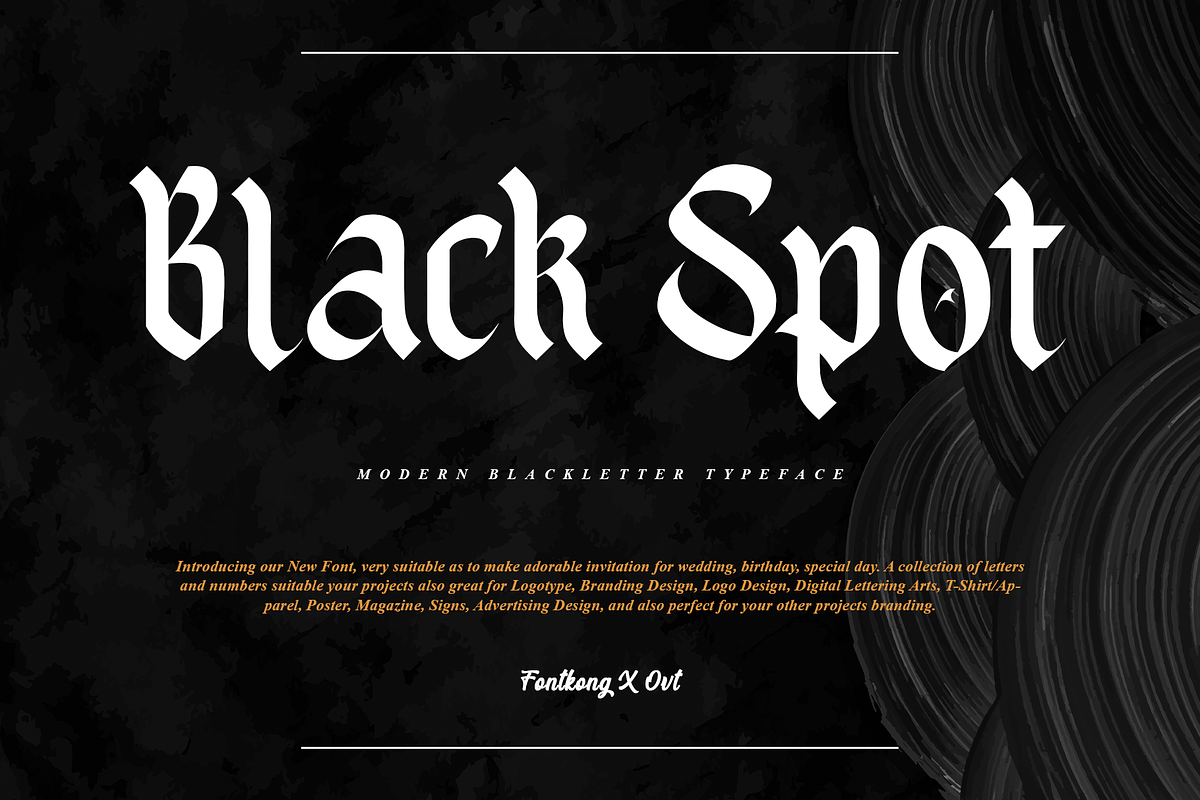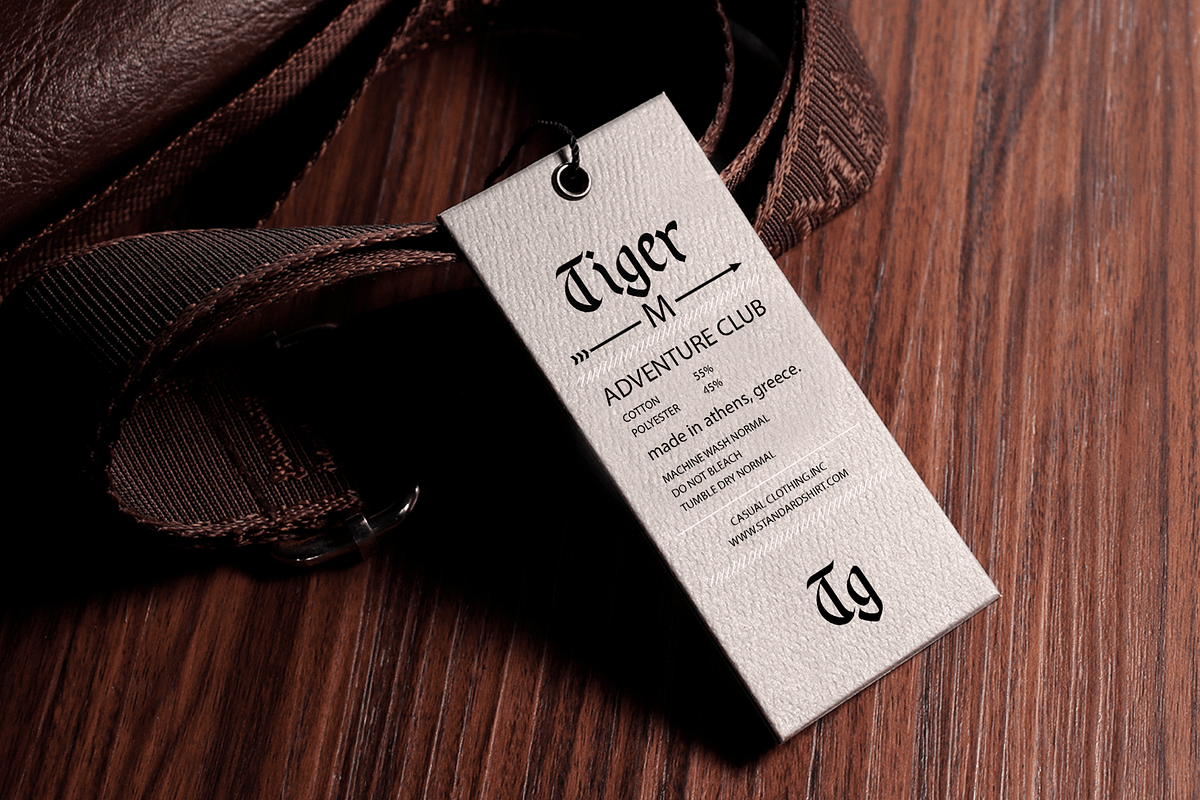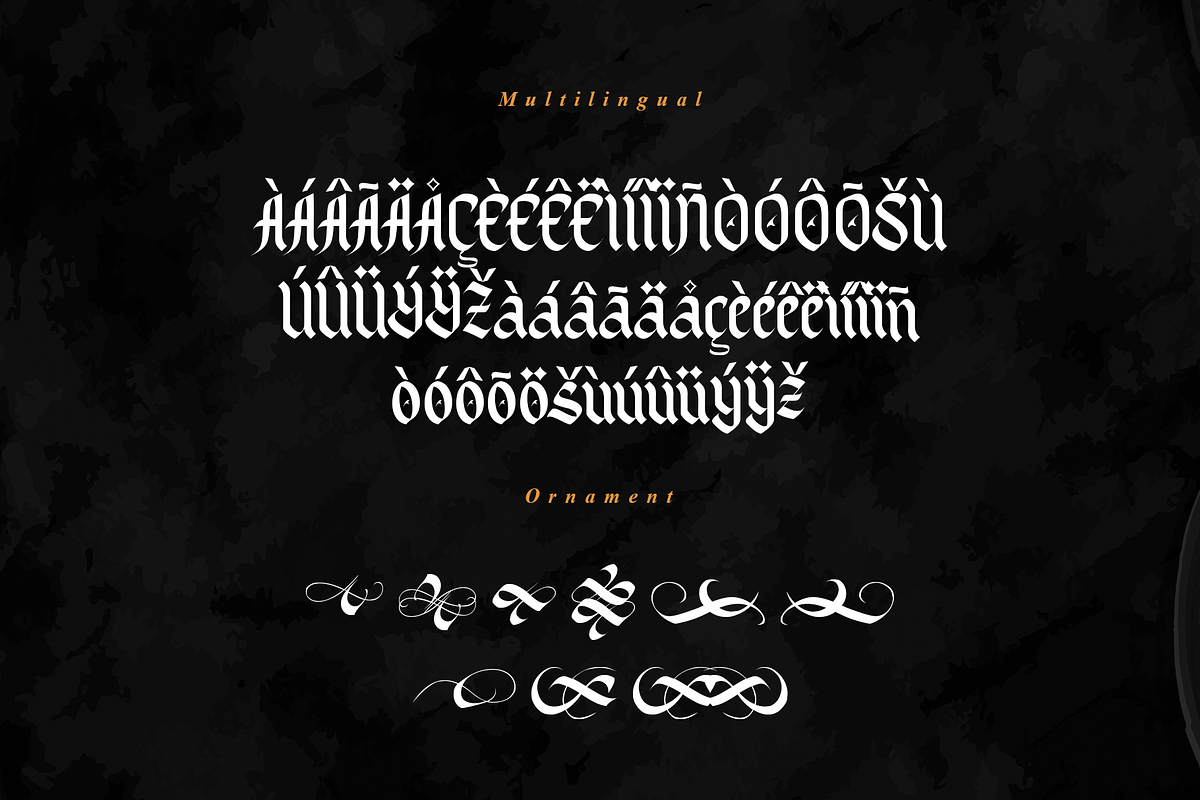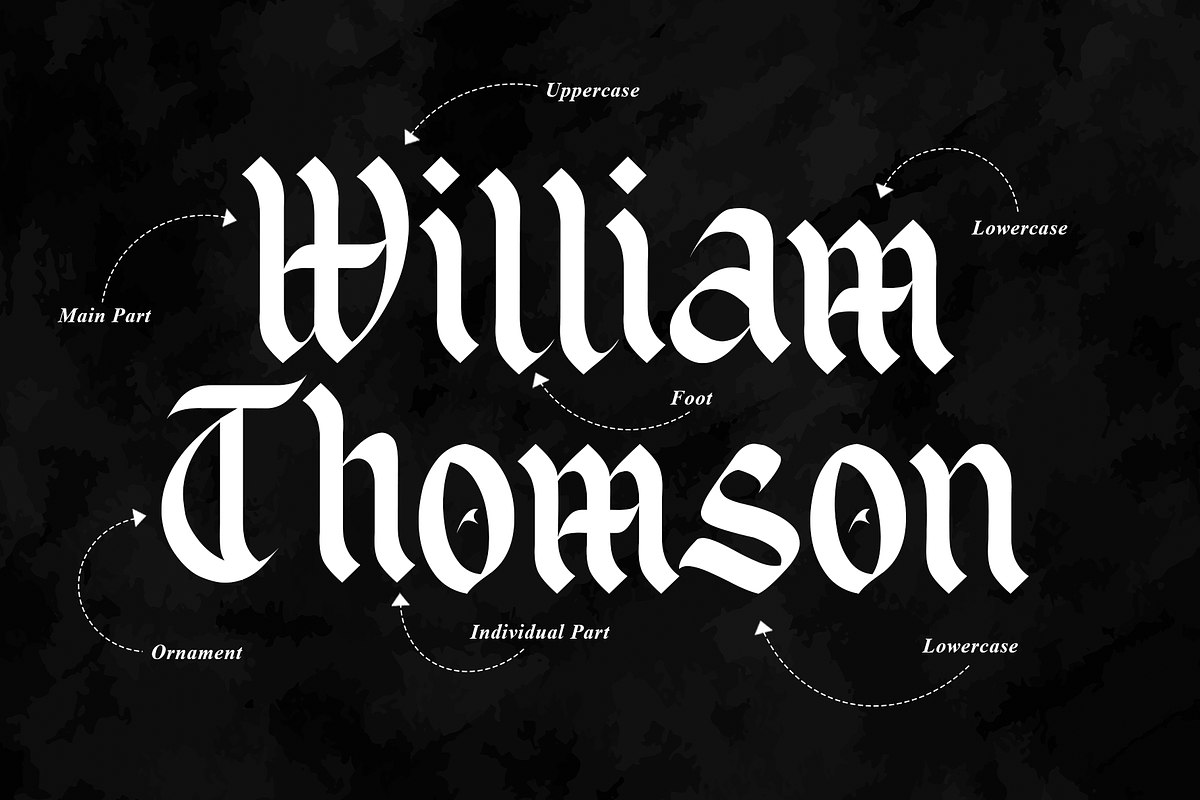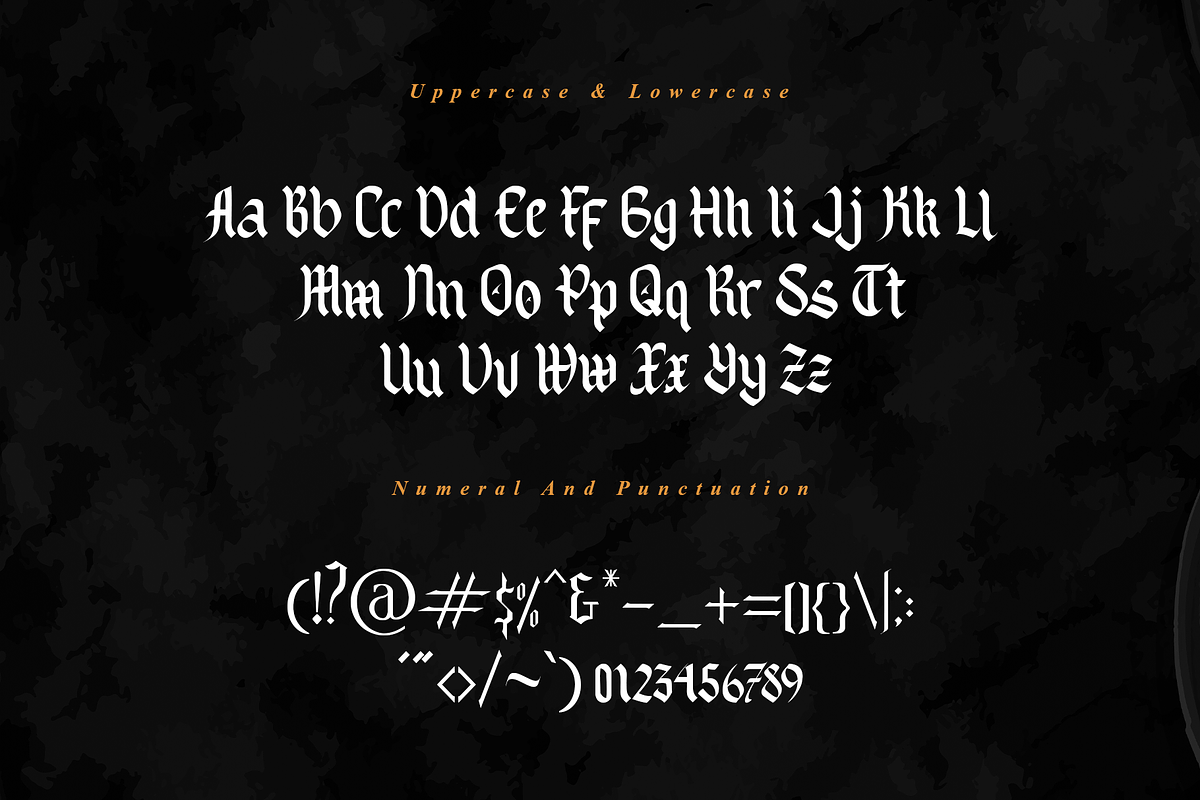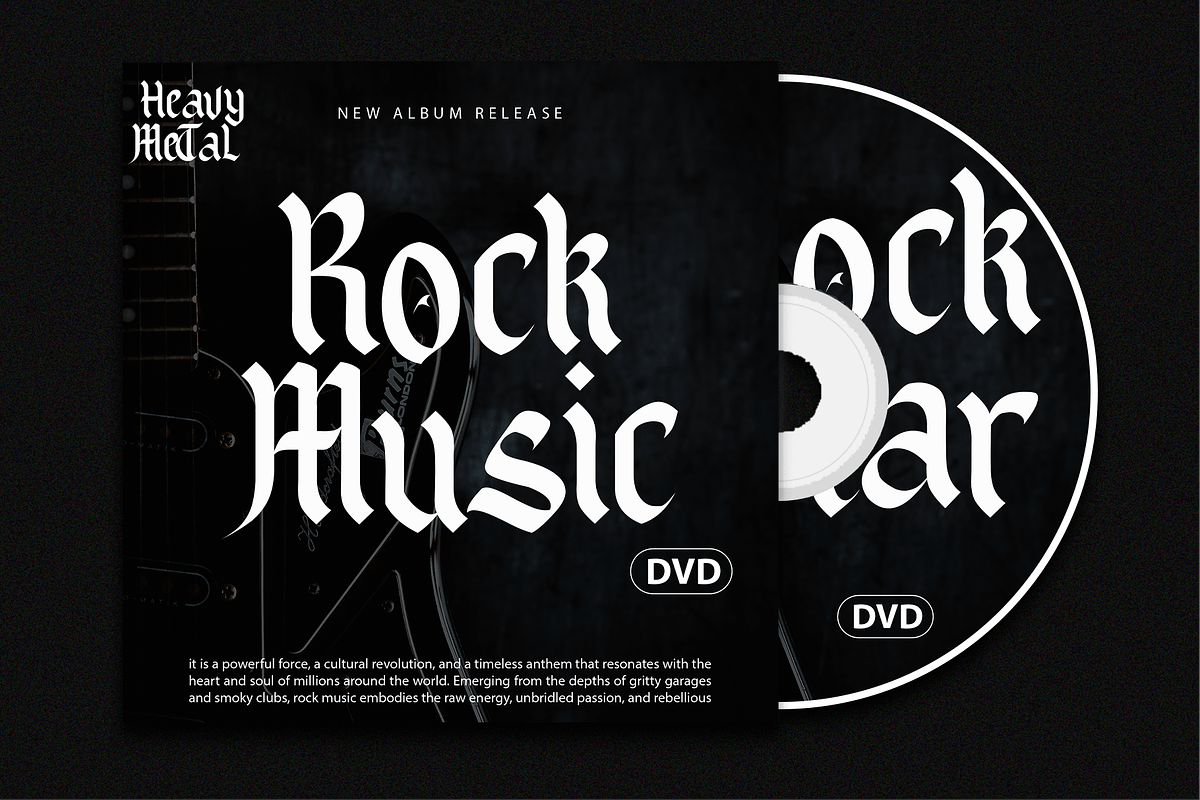
Black Spot - Modern Blackletter
Black Spot - Modern Blackletter Typeface
Introducing "Black Spot," a modern blackletter typeface that combines boldness with intricate details. Perfect for graphic designers, typographers, and creatives looking to make a strong visual statement, Black Spot offers a contemporary interpretation of traditional blackletter styles.
Ideal for branding, posters, album covers, editorial design, and cultural projects, Black Spot’s robust and detailed characters provide a striking visual impact. Each letter is carefully crafted to balance the historical essence of blackletter with modern readability, ensuring your designs stand out with a unique and powerful aesthetic.
The "Black Spot" font includes a comprehensive set of uppercase and lowercase letters, numbers, punctuation marks, and special characters. This versatile set facilitates seamless integration into various design applications, from impactful branding to expressive editorial layouts.
Make a bold impression with Black Spot, the modern blackletter typeface that combines boldness and intricacy in every stroke.